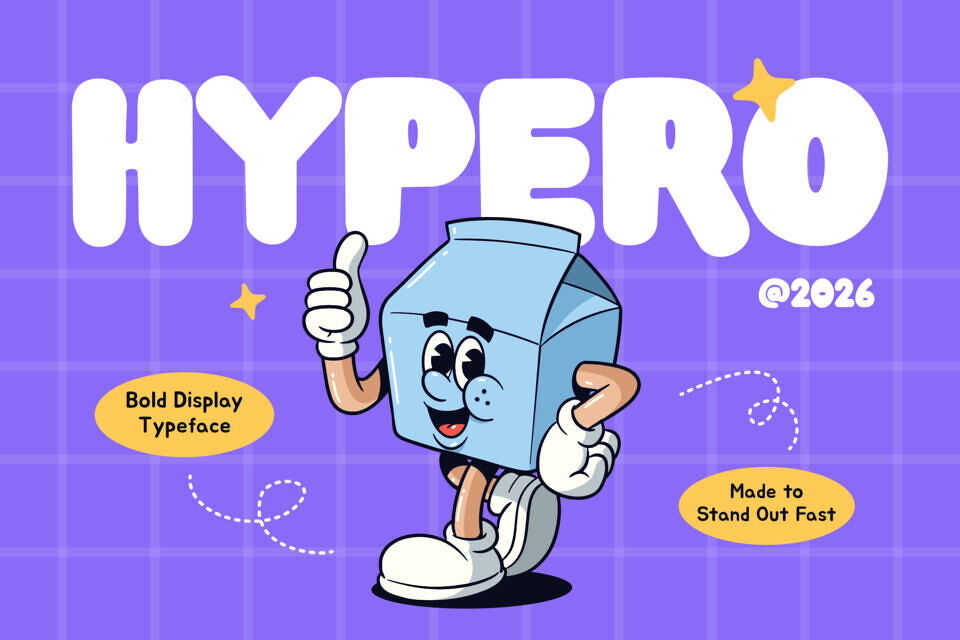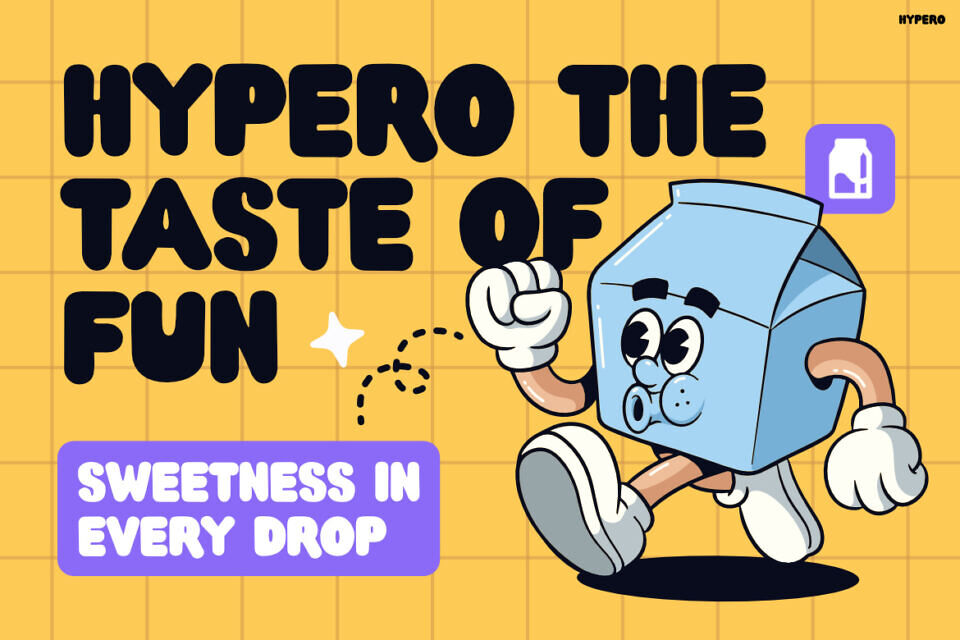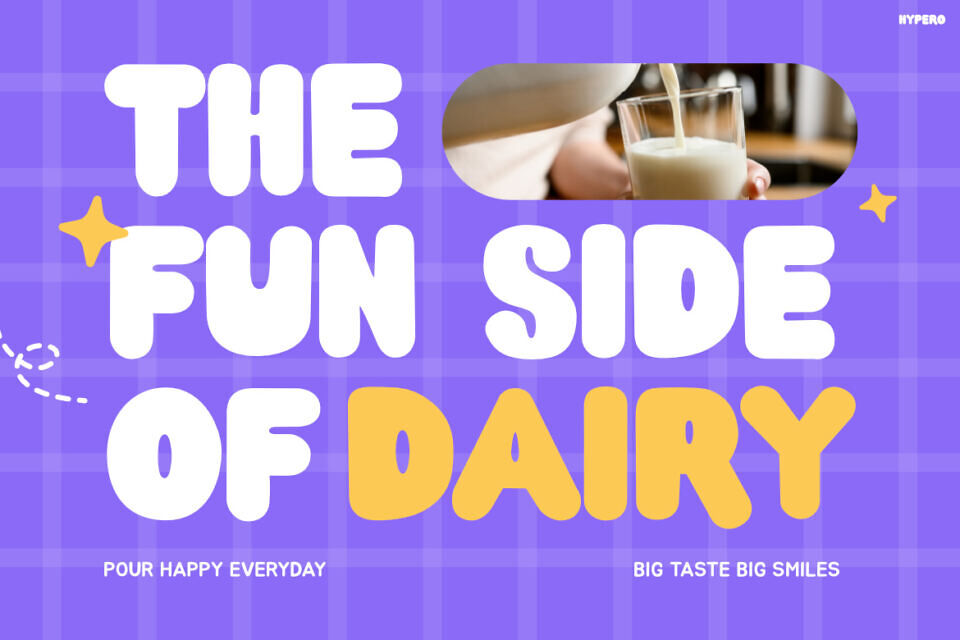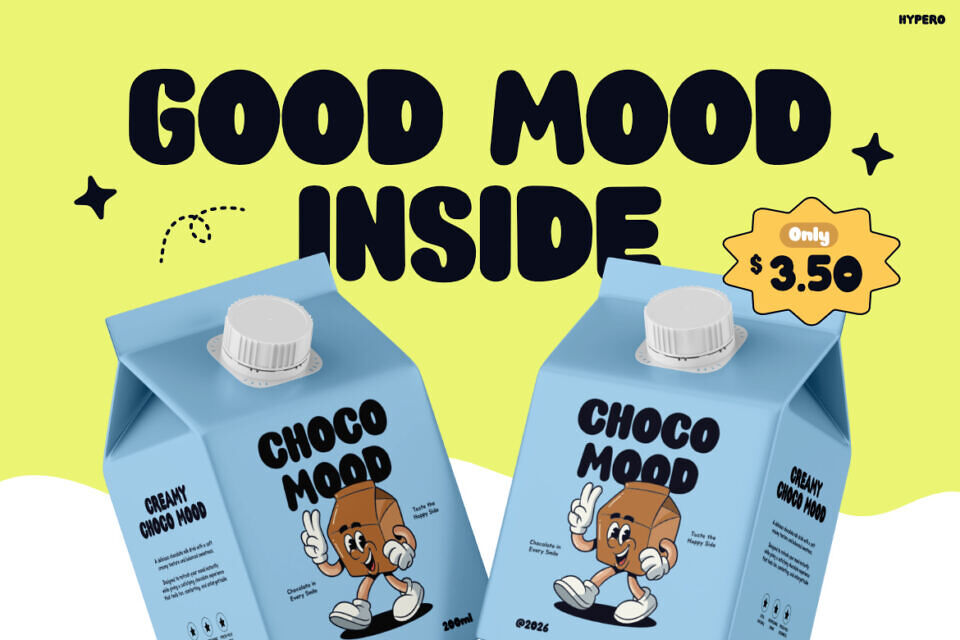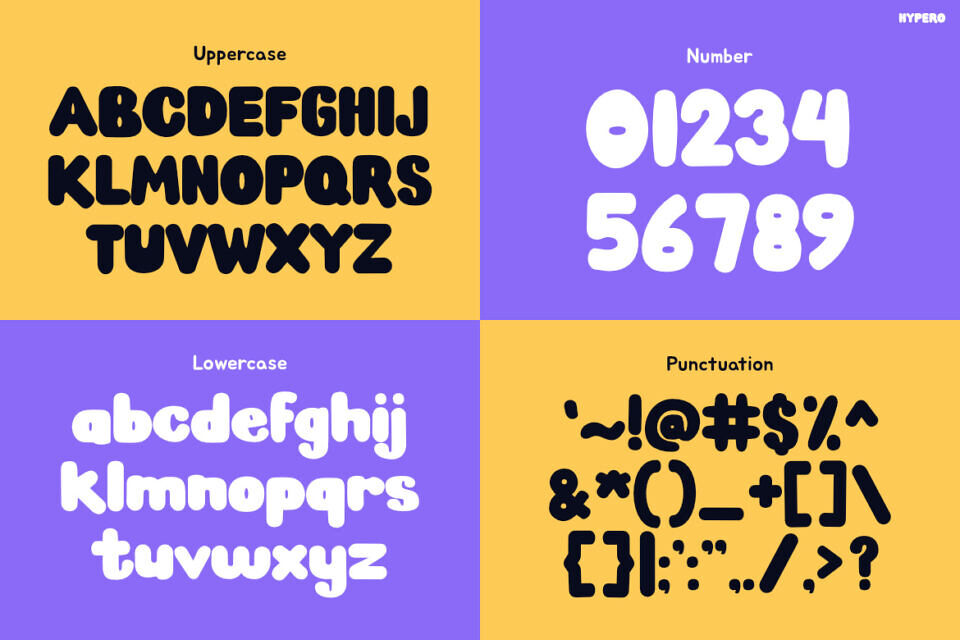
Hypero is a bold bubble display font designed to bring fun, happiness, and energetic vibes into every project. Inspired by retro cartoons, snack packaging, playful mascots, and cheerful branding, this font instantly creates a lively and eye-catching visual impact. Hypero combines chunky rounded letterforms with soft bubbly curves, making every word feel cute, bold, and full of personality.